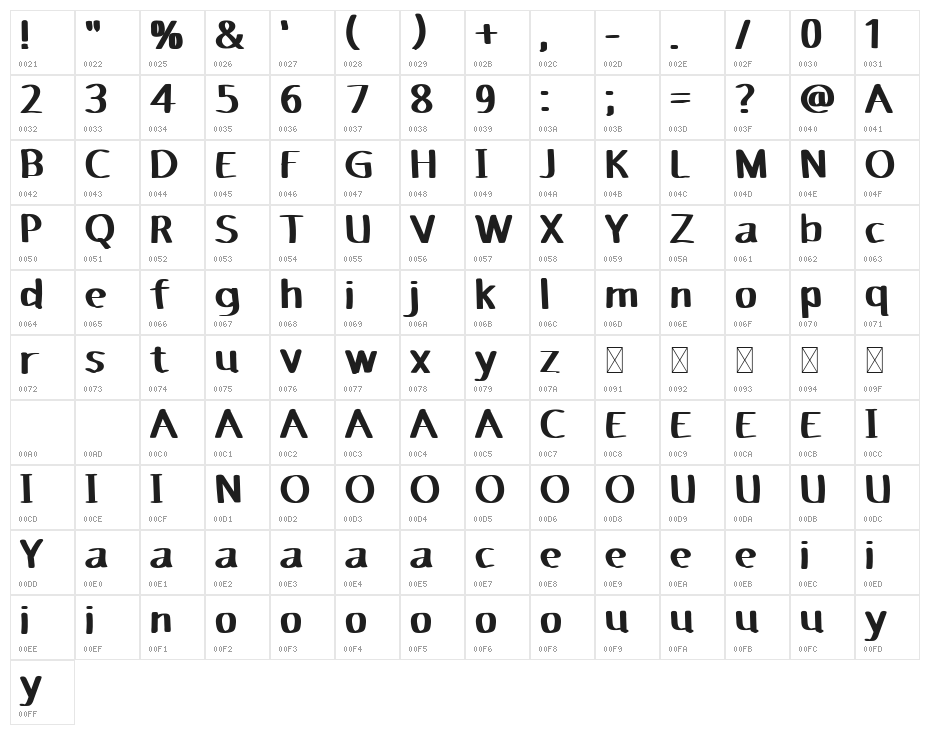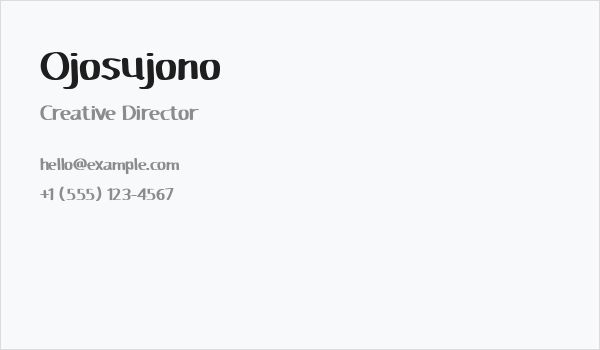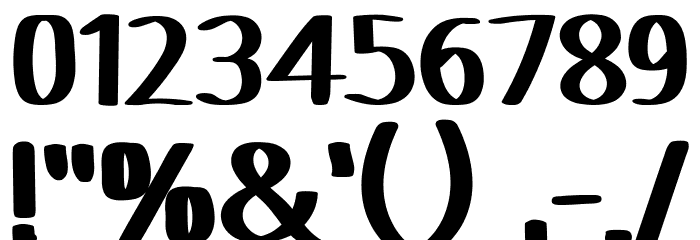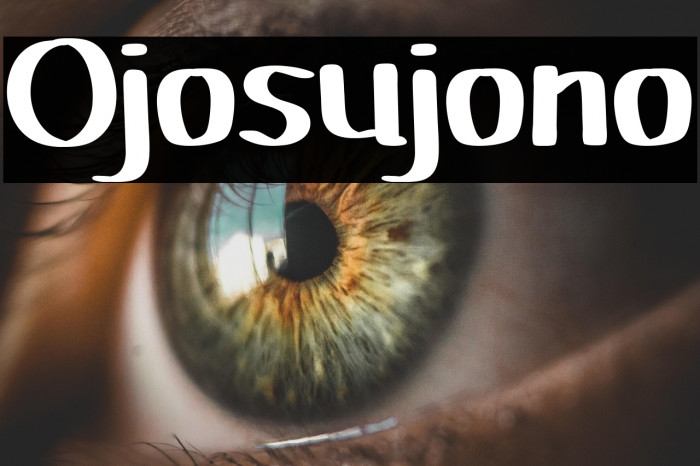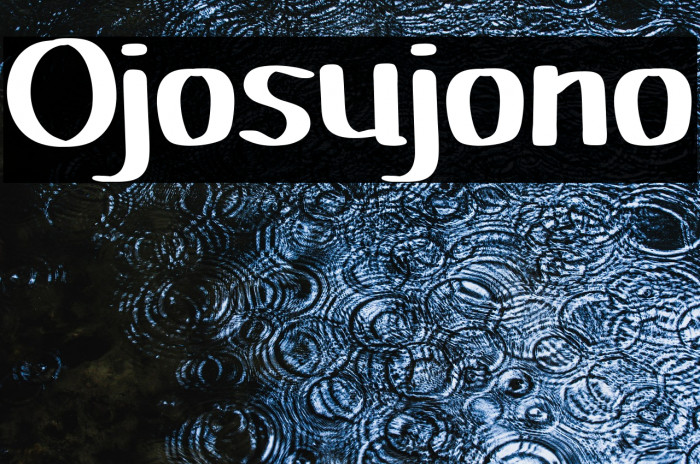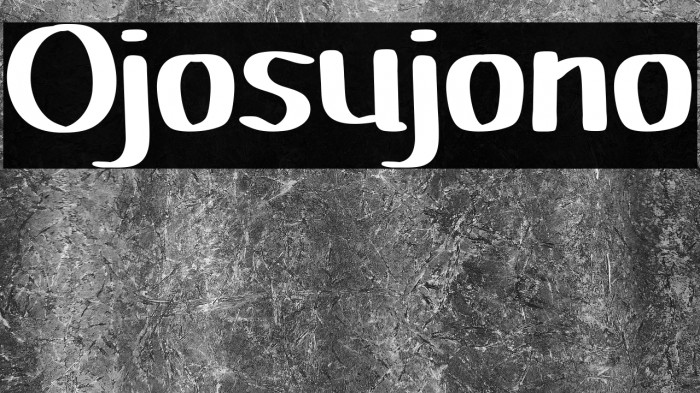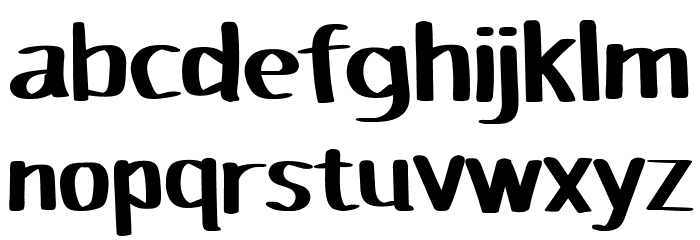
Ojosujono Font
Ojosujono Description
This font exhibits a playful and dynamic style with a handwritten appearance. The characters are bold and slightly irregular, giving it a casual and friendly look. The uppercase letters are tall and slightly narrow, while the lowercase letters maintain a consistent height, adding to the font's readability. The numerals are well-proportioned, and the special characters are distinct, matching the overall whimsical style. This font's unique character shapes and informal vibe make it suitable for creative and fun projects.
| Proposed Projects | Ideal for children's books, greeting cards, playful branding, and casual invitations. |